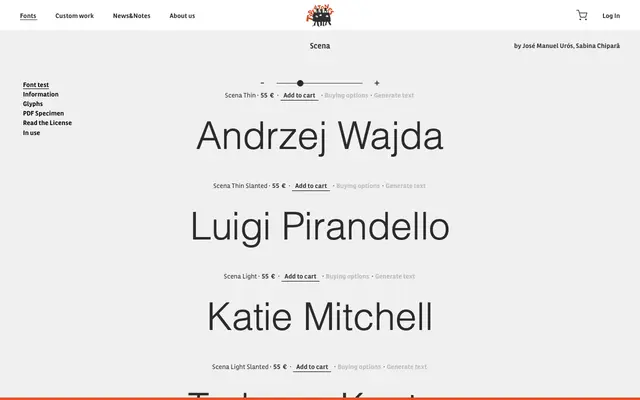
Scena
A two-width geometric sans by José Manuel Urós and Sabina Chipară, built for cultural and theatrical contexts across seven weights with matching slanted styles.
The family runs across standard and Wide widths, each offering seven weights from Thin to Black with corresponding slanted cuts, giving 28 styles in total. The theatrical naming of sample strings — directors, playwrights and performers — hints at the intended context: cultural institutions, programmes and stage-adjacent identity work. Slanted rather than true italic variants keep the character set rational and consistent across widths.
Scena presents clean, upright forms with slanted rather than italic variants, and a wide width option, placing it squarely in the geometric or rationalist sans tradition suited to display and cultural work.